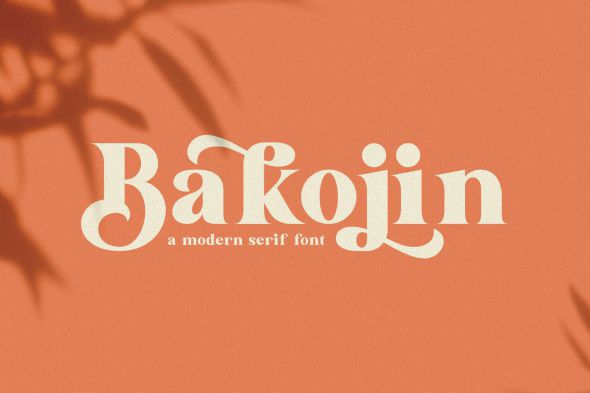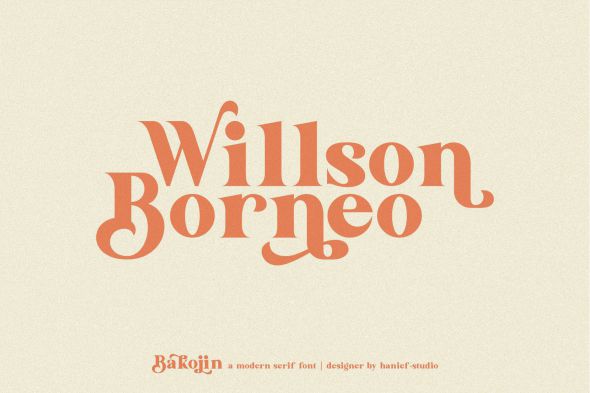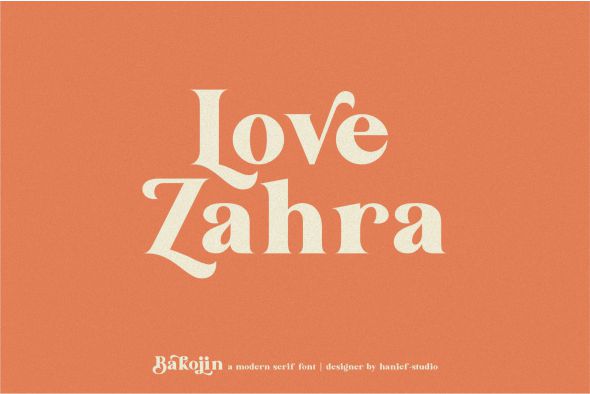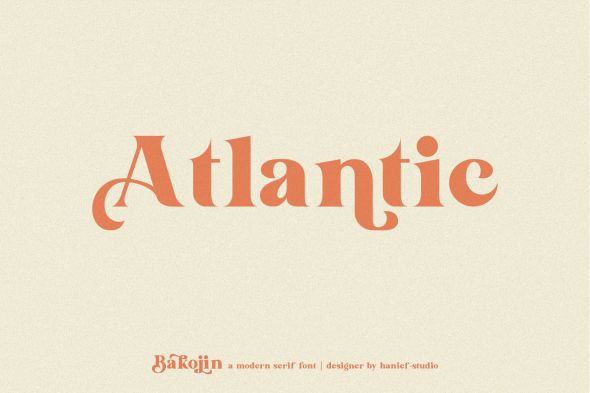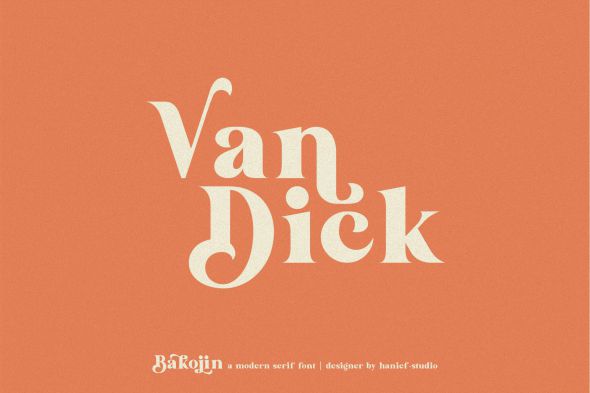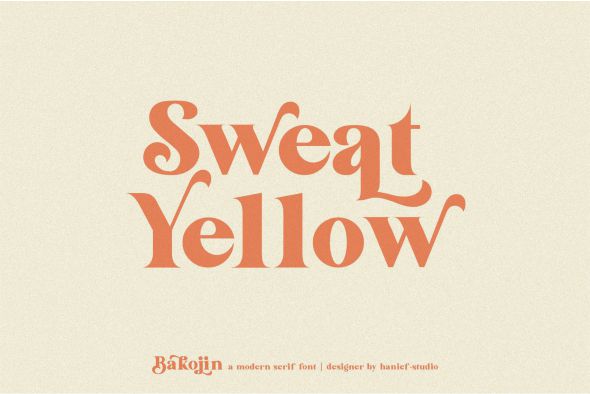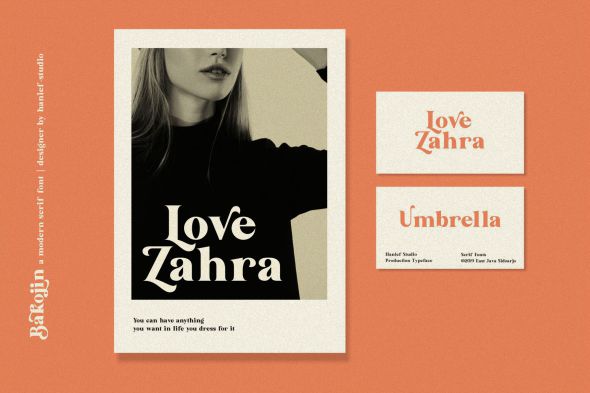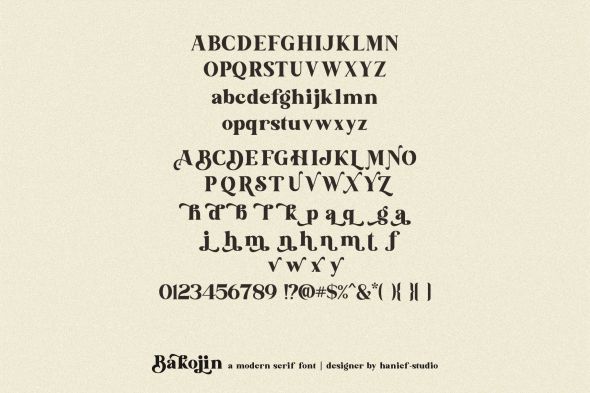
This modern serif typeface features serifs. Perfect for gorgeous logos & titles, Bakojin will pair beautifully with many fonts and work well with whatever project you’re working on.
- Containing full set of punctuation and numerals
- Include Alternate, Swash & stylistic set Typeface.
- An broader version of the font for a Bakojin different feel.